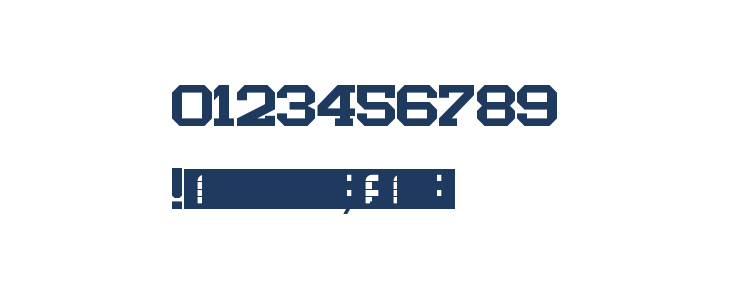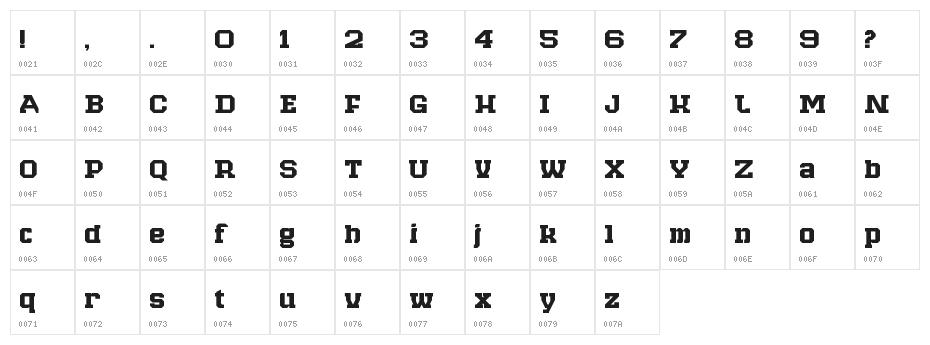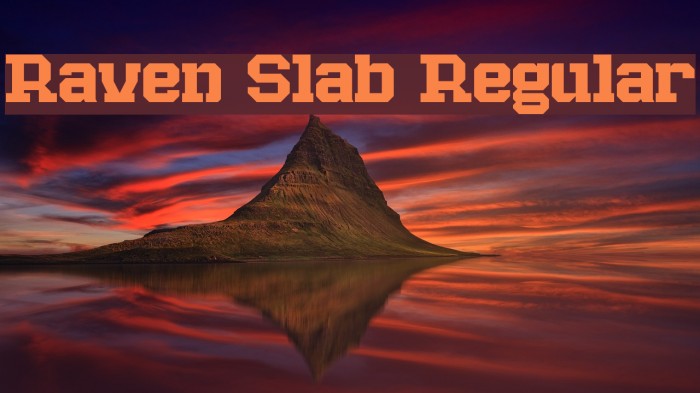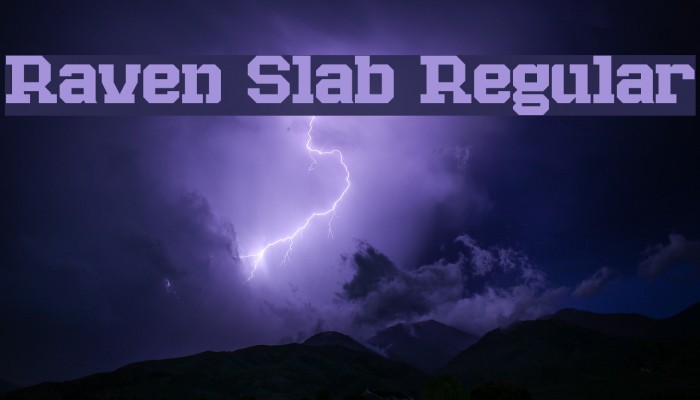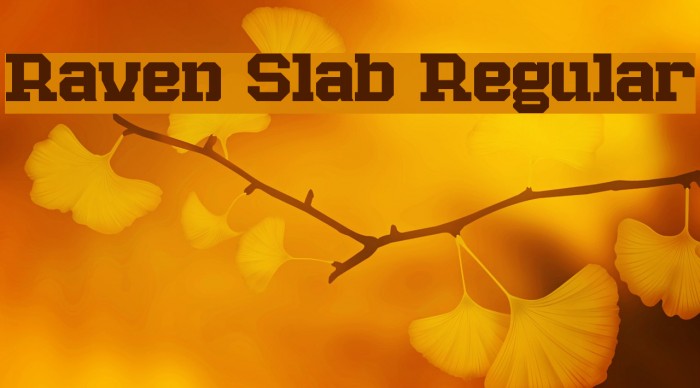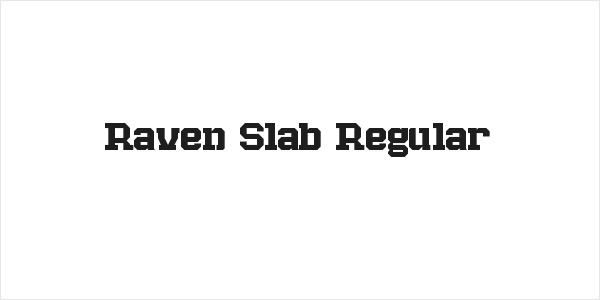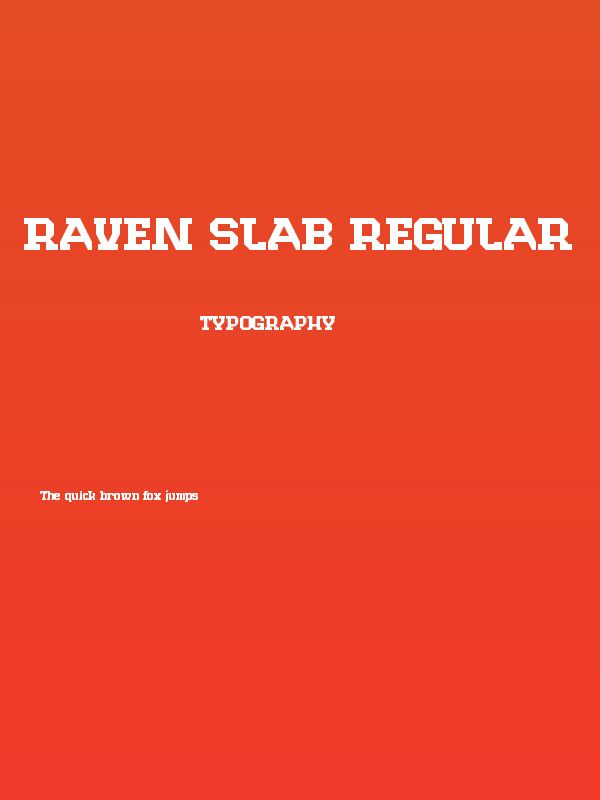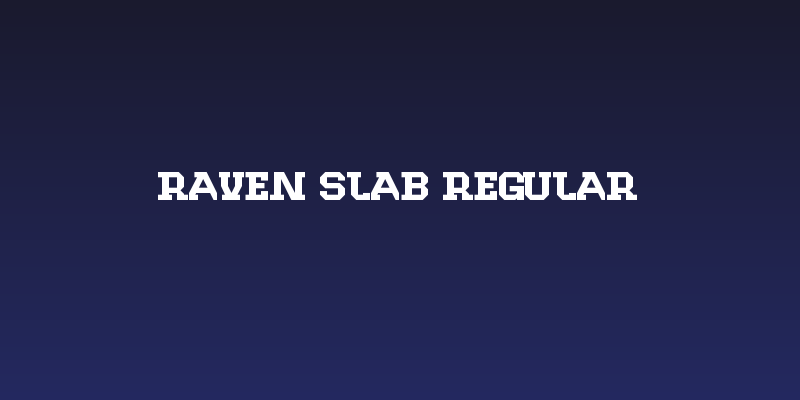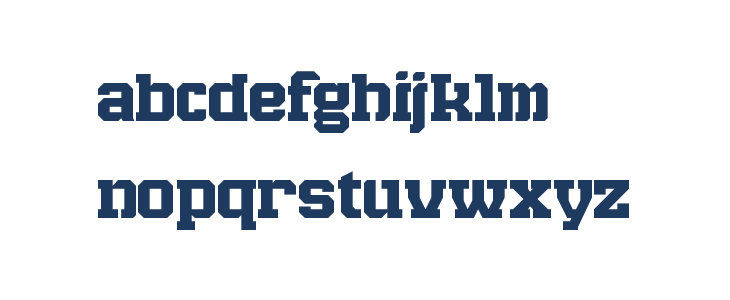
Raven Slab Regular Font
Raven Slab Regular Description
This font features a bold and robust slab serif style, characterized by thick, block-like serifs and a strong presence. The uppercase letters are uniform in height, with a geometric structure that gives them a modern and industrial feel. The lowercase letters maintain the same boldness, with distinct serifs that enhance readability. Numbers are equally bold, ensuring they stand out in any context. The overall design is clean and impactful, making it suitable for attention-grabbing headlines and titles. The font's strong lines and consistent weight make it versatile for various design projects.
| Proposed Projects | Ideal for branding, posters, headlines, and any project requiring a strong visual impact. |